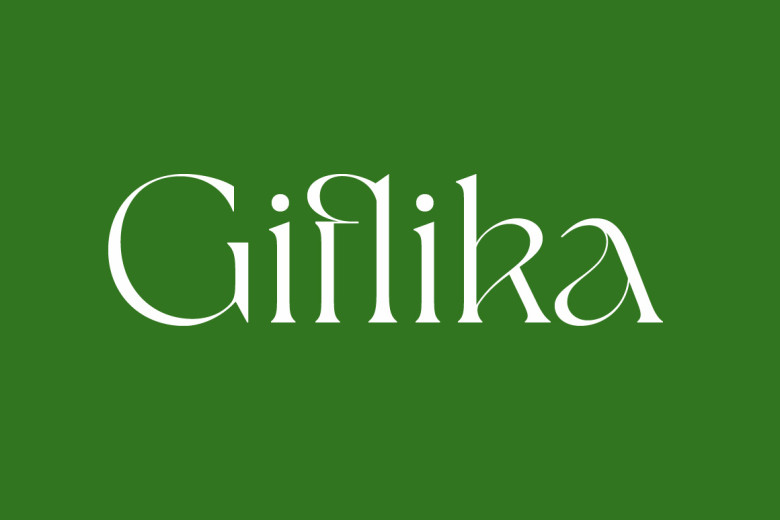
Giflika Font
Giflika Modern Display Serif. Giflika is a stylish and modern display serif, that best uses as display, for large title, headings, logo, branding, magazines, product packaging, invitation, quote, etc. Giflika equipped with Ligature and any Alternates and underline, clean lines, and smooth curve, it still gives a feel any task an additional feel of elegance.
Giflika Serif Font